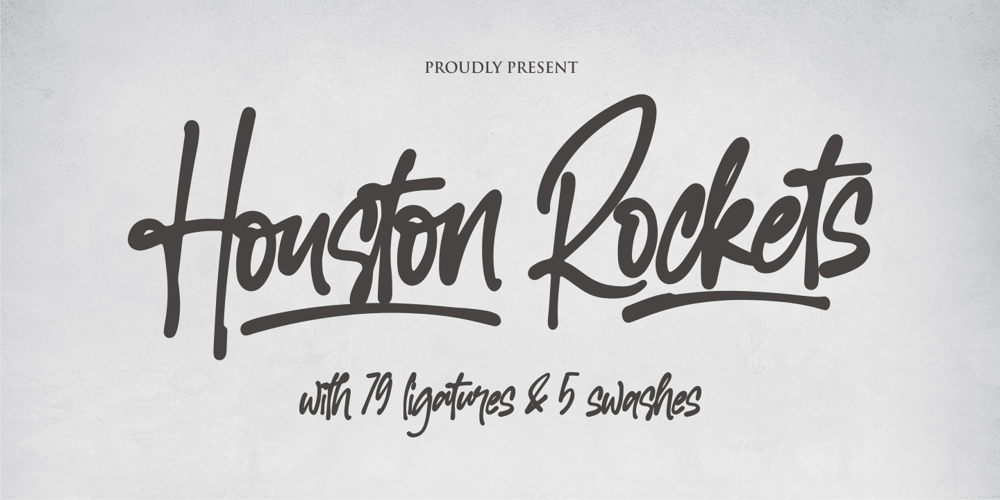
Houston Rockets
Houston Rockets font
Houston Rockets Font Family was designed by Siti Nurjanah and published by NJ Studio. Houston Rockets contains 1 styles and family package options. Hi…Thank for your visitHouston Rockets a handwritten font. It features ligatures characters that will take your projects to the next level!This font is PUA code which means you can easily access all the glyphs that are full of natural! It also features many special features including glyphs. font designs that are made for various vector designs, printing such as digital wedding blogs, online shops, social media, while printing can be used in the field of product clothing, accessories, bags, pins, logos, business cards, watermarks and many others …so it can make your product look natural and attractive, and also Multilingual support!!!Features: 79 Ligatures & 5 Swashes Uppercase & Lowercase Numeral & Punctuation PUA Encoded Multilingual support Simple Installation Work both on Mac and Windows Happy design …